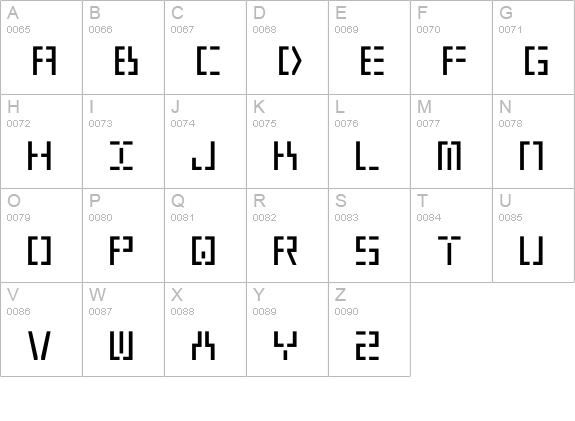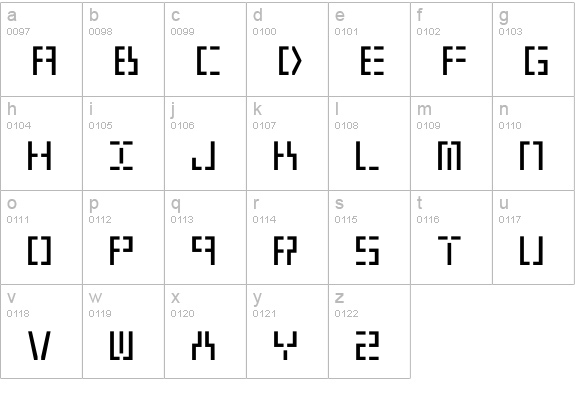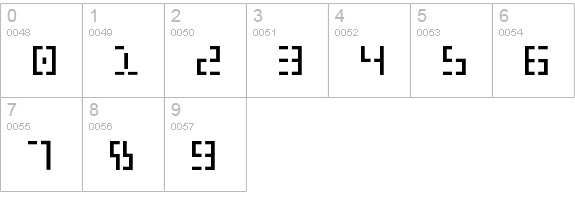
The Year 2000 font captures the essence of the turn of the millennium with its futuristic and retro vibes. This unique typeface features bold, geometric shapes and sharp angles, reminiscent of the digital era. The Year 2000 font is perfect for adding a touch of nostalgia to your design projects, whether you're creating posters, logos, or social media graphics. Best of all, the Year 2000 font is available for free download at FontsMarket.com. Get your hands on this stylish and eye-catching font today and take your designs to the next level!